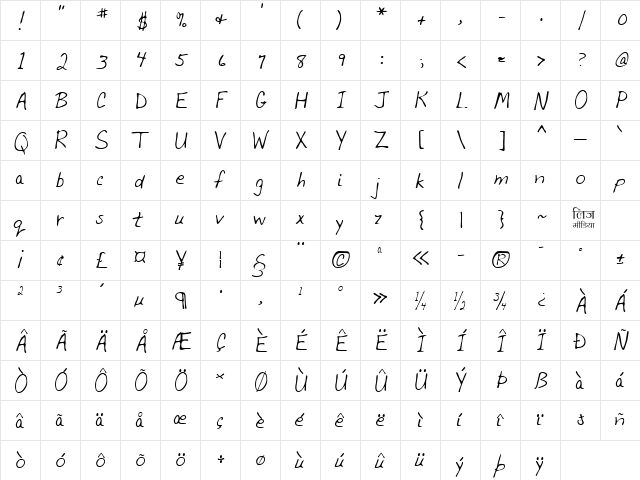
LEHN028 Regular
Design Context for LEHN028 Typeface
LEHN028 takes a measured approach to typography — its balanced proportions and neutral character make it a reliable workhorse for both digital and print work.